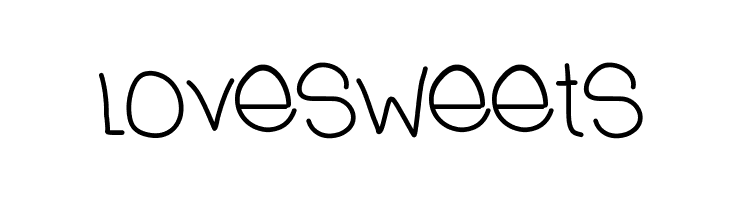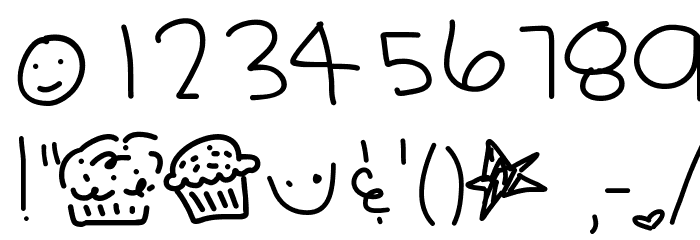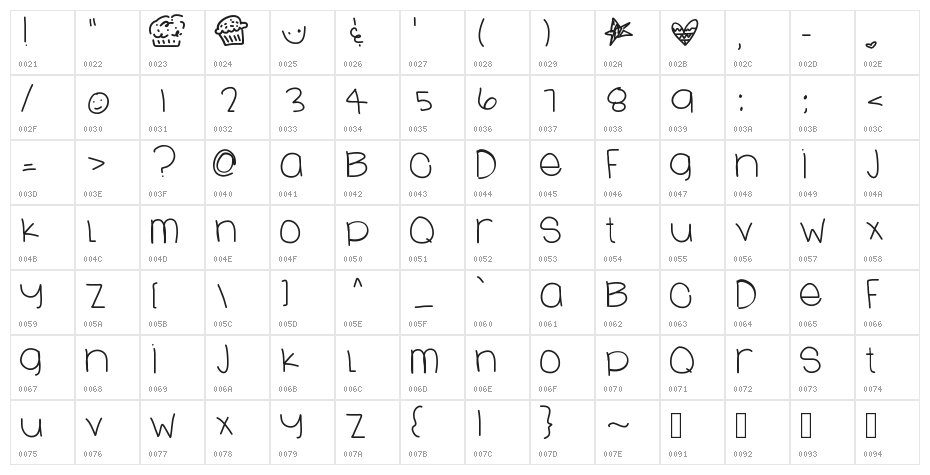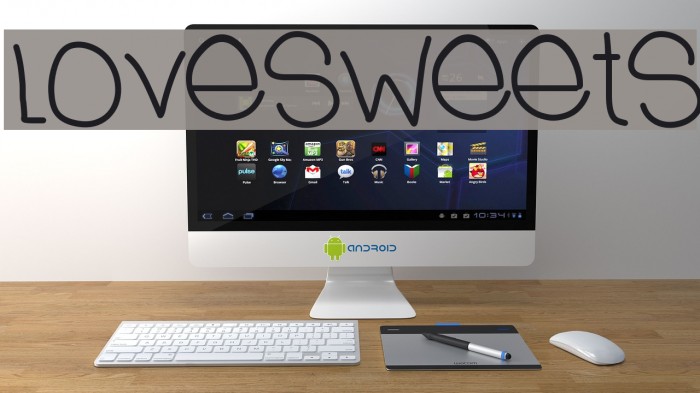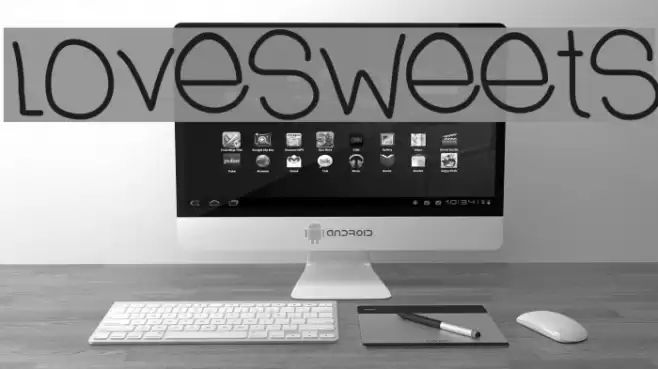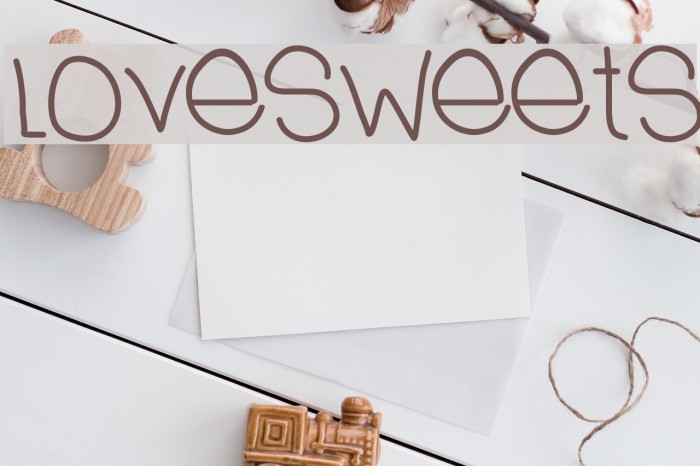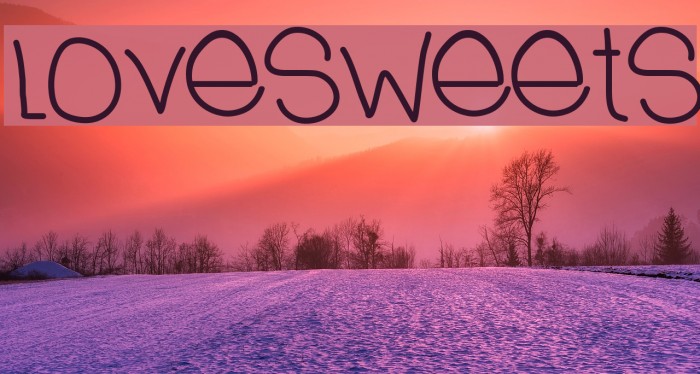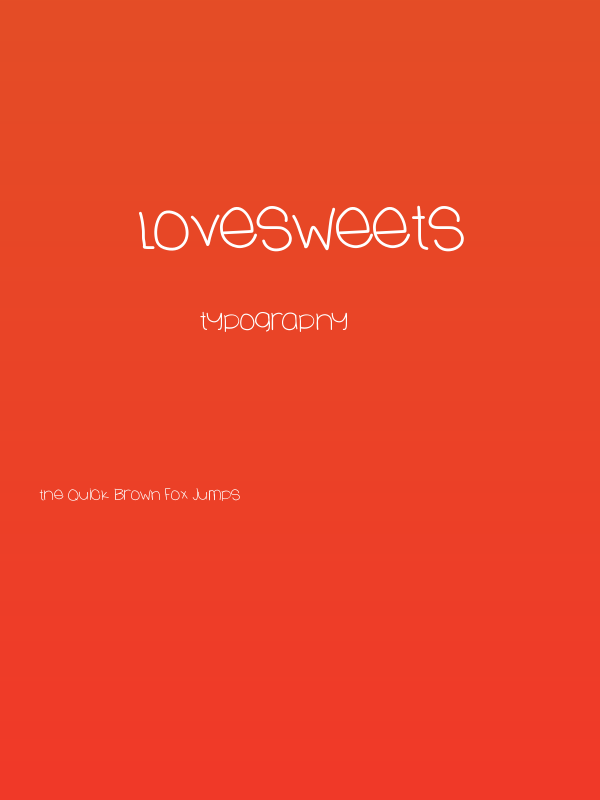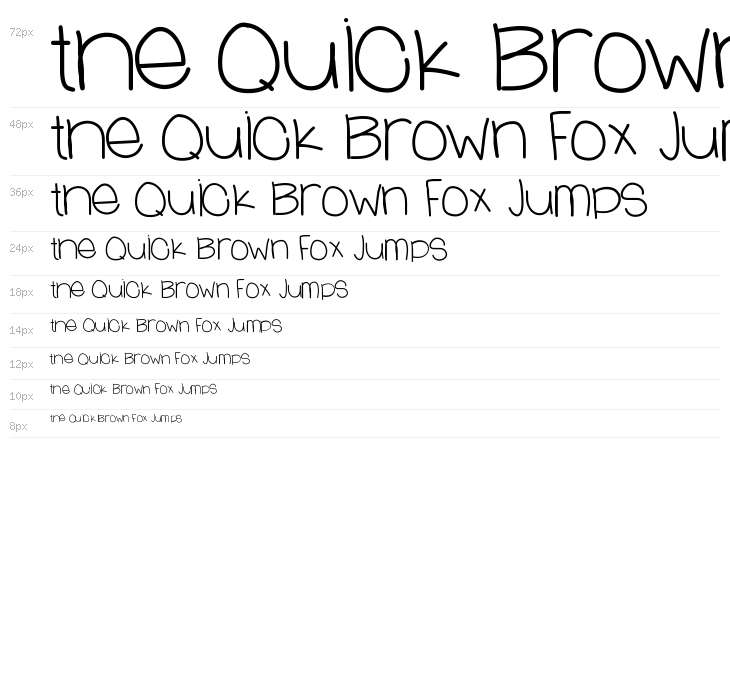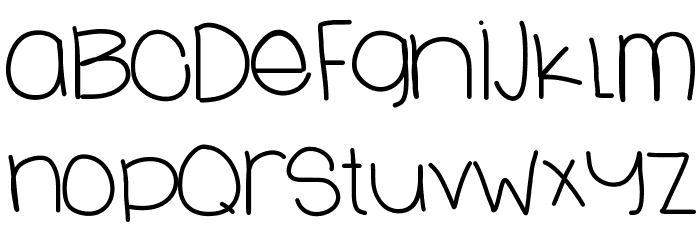
LoveSweets Font
LoveSweets Description
This playful and whimsical font features rounded, hand-drawn characters that exude a sense of fun and creativity. The letters are slightly irregular, adding a charming, informal touch. The uppercase and lowercase letters maintain a consistent style, with smooth curves and a casual flow. The numerals and special characters complement the alphabet with similar playful elements, including smiley faces and cupcake illustrations. This font is perfect for projects that require a lighthearted and friendly tone.
| Proposed Projects | Ideal for children's books, greeting cards, playful branding, and DIY craft projects. |